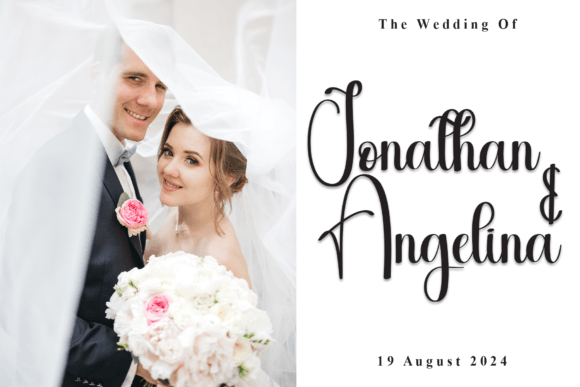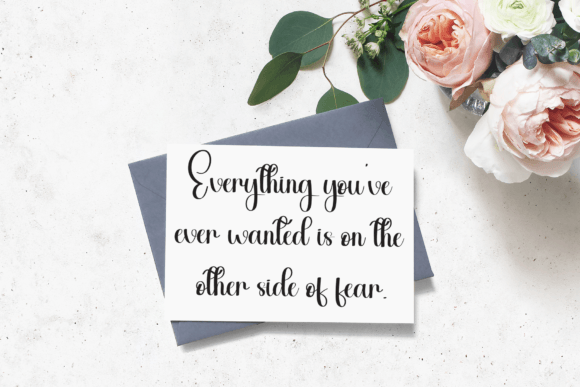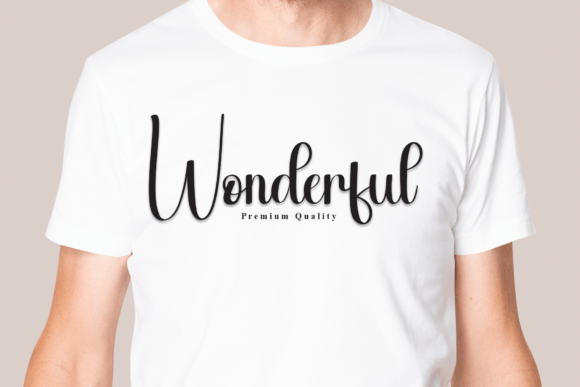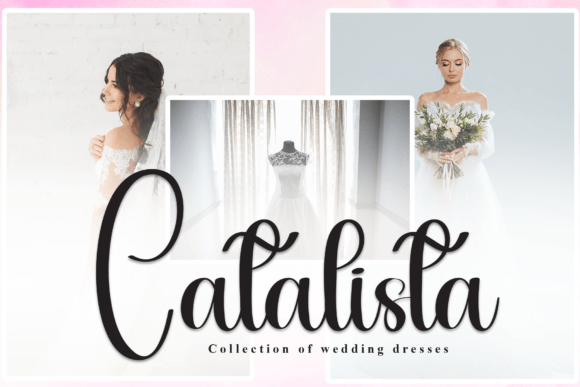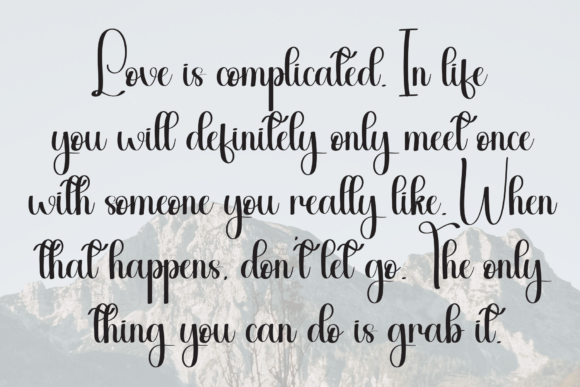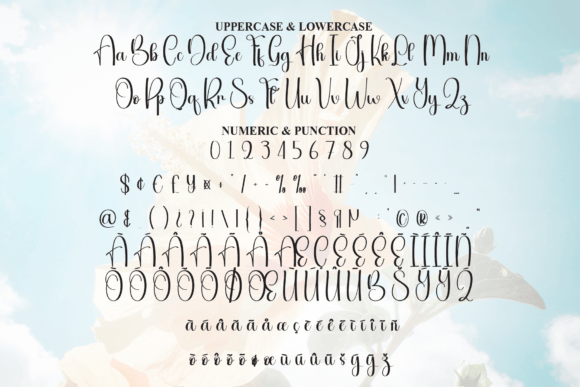
Bright Sunday Font: Adding a Touch of Whimsy to Your Designs
Are you looking for a font that can add a dash of warmth and friendliness to your designs? Look no further than Bright Sunday Font, a pleasingly charming handwritten display font that’s perfect for creating eye-catching and engaging visuals. In this article, we’ll take a closer look at what makes Bright Sunday Font so special and how you can use it to elevate your design game.
A Delightful and Fun Font for Your Designs
Bright Sunday Font is imbued with a delightful zest that makes it an extraordinary fun touch to your design journey. Its playful and cheerful vibe is perfect for designers and crafters who want to add a light-hearted and whimsical touch to their work. Whether you’re creating wedding invitations, greeting cards, or social media graphics, Bright Sunday Font is the quintessential choice for imbuing your designs with a sense of joy and cuteness.
What Makes Bright Sunday Font So Special?
So, what sets Bright Sunday Font apart from other fonts? Here are a few key features that make it a standout:
- Handwritten with love: Bright Sunday Font is a carefully crafted handwritten font that exudes warmth and friendliness. Its unique and personal touch makes it perfect for designs where you want to add a human element.
- Delightful and fun: This font is designed to add a dash of fun and playfulness to your designs. Its cheerful vibe is perfect for creating eye-catching and engaging visuals that will leave a lasting impression.
- Perfect for wedding and party designs: Bright Sunday Font is a popular choice for wedding invitations, greeting cards, and other party designs. Its light-hearted and cheery vibe makes it perfect for celebrating special occasions.
- Versatile and easy to use: Bright Sunday Font is a versatile font that can be used for a wide range of design projects. Its easy-to-read and clean design makes it perfect for both digital and print designs.
How to Use Bright Sunday Font in Your Designs
Using Bright Sunday Font in your designs is easy and straightforward. Here are a few tips to get you started:
- Pair it with other fonts: Bright Sunday Font can be paired with other fonts to create a unique and eye-catching visual effect. Try pairing it with a clean and simple font for a contrasting look.
- Use it for headings and titles: Bright Sunday Font is perfect for headings and titles where you want to add a touch of whimsy and playfulness.
- Add some color: Bright Sunday Font looks great with bright and bold colors. Try adding some color to your design to make it more eye-catching and engaging.
Why Designers and Crafters Love Bright Sunday Font
Bright Sunday Font has become a favorite among designers and crafters for several reasons:
- Unique and creative: Bright Sunday Font is a unique and creative font that adds a touch of personality to any design.
- Perfect for a wide range of designs: Bright Sunday Font is perfect for a wide range of designs, from wedding invitations to social media graphics.
In conclusion, Bright Sunday Font is a charming and delightful handwritten display font that’s perfect for adding a touch of whimsy and playfulness to your designs. Its unique and personal touch makes it perfect for designers and crafters who want to create eye-catching and engaging visuals. Whether you’re creating wedding invitations, greeting cards, or social media graphics, Bright Sunday Font is the quintessential choice for imbuing your designs with a sense of joy and cuteness. So why wait? Download Bright Sunday Font today and start adding a touch of brightness to your designs!
| Feature | Benefit |
| Handwritten with love | Adds a personal and human touch to your designs |
| Delightful and fun | Adds a dash of playfulness and whimsy to your designs |
| Perfect for wedding and party designs | Makes your designs more celebratory and engaging |
| Versatile and easy to use | Can be used for a wide range of design projects |